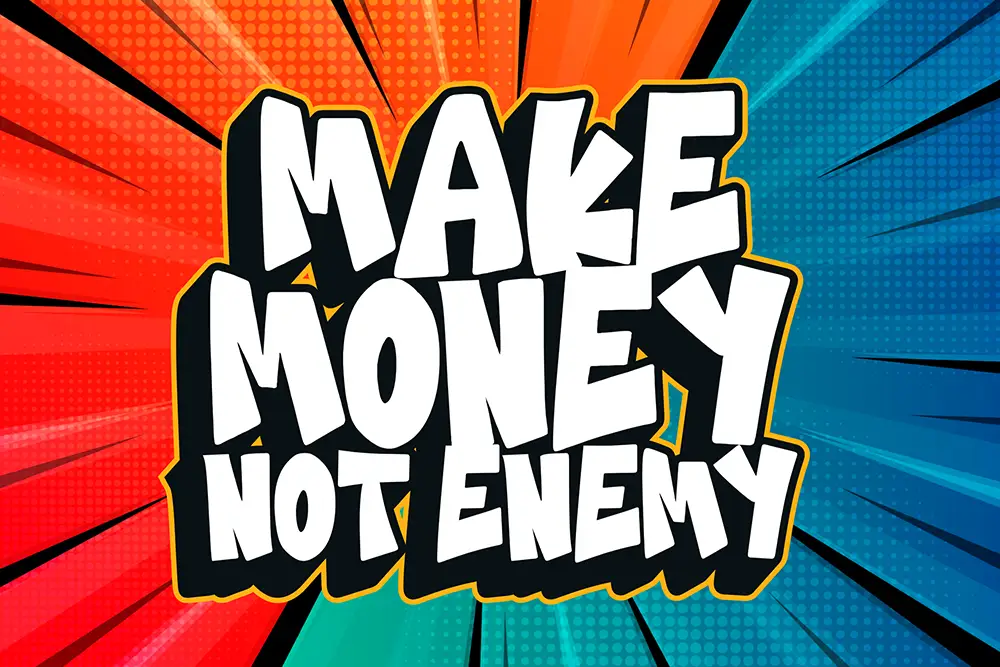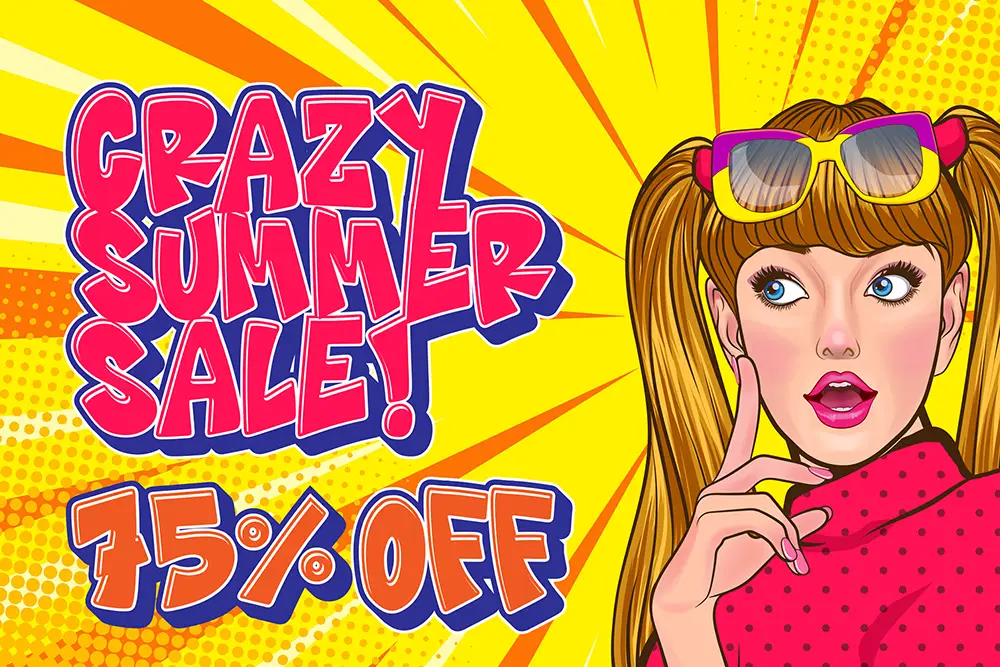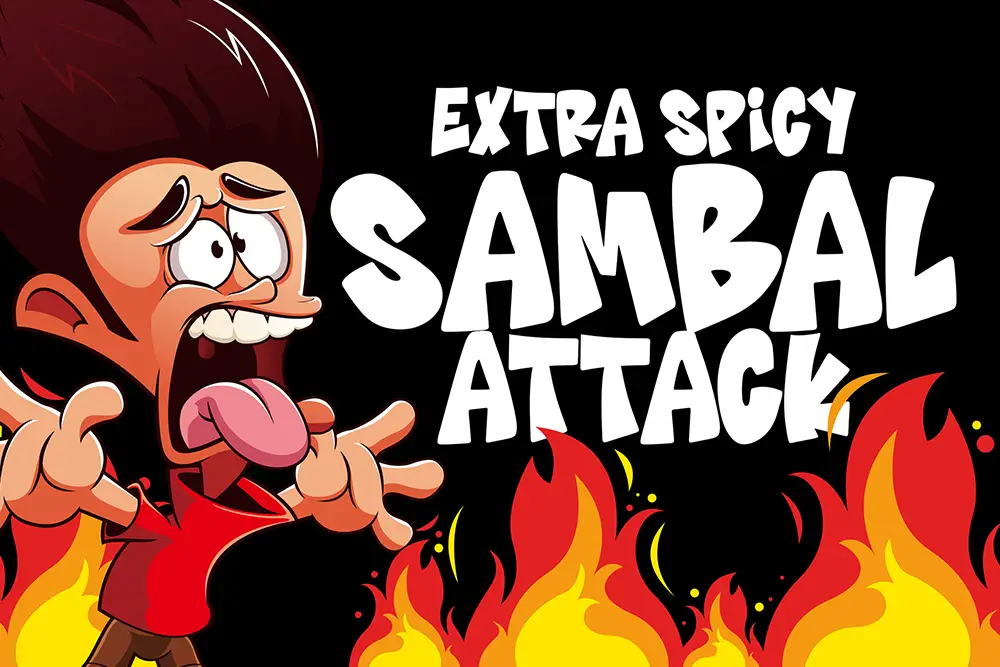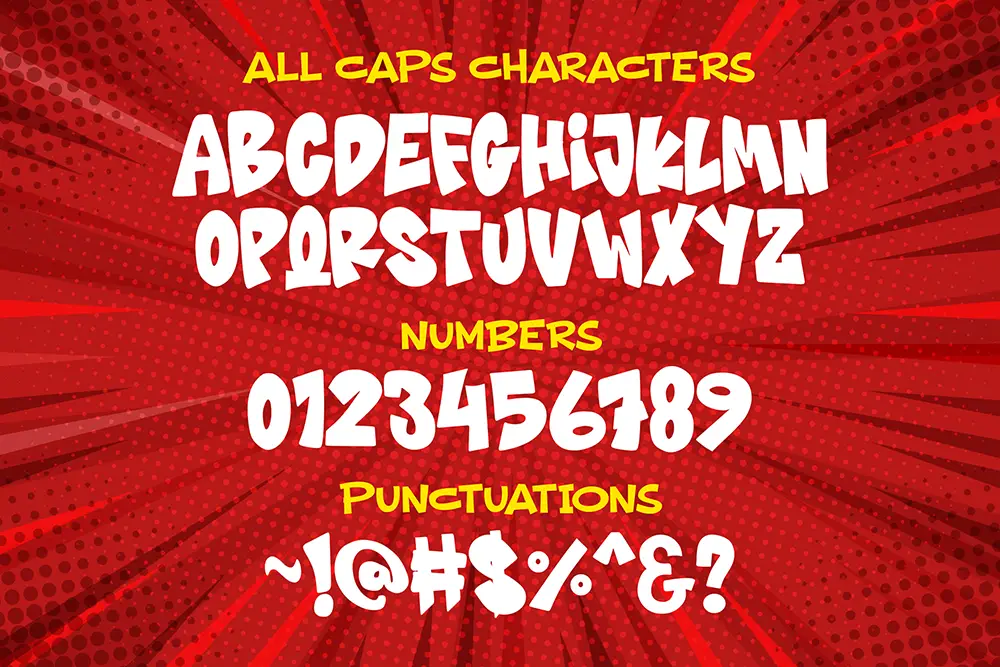
Comic Roasting – Comic Display Font for Playful Creative Design
Fonts bring life to visual communication, and nothing delivers fun energy like a comic display font. Comic Roasting – Comic Display Font is a bold, allcaps typeface created for playful, dynamic, and expressive design projects. With its quirky forms and unique curves, Comic Roasting instantly captures attention while adding humor and personality to your work.
This comic display font is perfect for posters, stickers, social media content, children’s branding, and logos that need a playful, approachable vibe. If your goal is to create designs that feel bold yet friendly, Comic Roasting is the ultimate choice.
Comic Display Font with Allcaps Energy
Comic Roasting isn’t just any font—it’s a carefully designed comic display font built entirely in allcaps. The uppercase style gives every word a bold presence, ensuring your message pops in posters, titles, and covers. With multilingual support, it’s not limited to one region or audience. This makes it a fantastic option for global projects that need to radiate fun and excitement.
From sticker packs to YouTube thumbnails, Comic Roasting brings expressive energy that feels hand-drawn yet polished.
Key Features of Comic Roasting – Comic Display Font
Designers choose fonts for both beauty and function. Here are the standout features of Comic Roasting – Comic Display Font:
• Allcaps Design: Built entirely in uppercase for strong, comic-inspired style
• Multilingual Support: Extended Latin coverage for international use
• Bold Playful Energy: Perfect for fun branding, children’s books, and posters
• Versatile Display Use: Works across digital, print, and packaging projects
Why Designers Love Comic Roasting
The secret to a great comic display font lies in balancing personality and readability. Comic Roasting does exactly that. Designers love it because it offers:
• Expressive Personality: Quirky shapes that add humor and warmth
• Bold Readability: Allcaps design that remains clear in large and small sizes
• Playful Aesthetic: Perfect for projects that need fun rather than formality
• Professional Quality: Designed with attention to detail for both print and web use
Comic Roasting for Posters and Stickers
Posters and stickers are all about bold, eye-catching visuals. With its comic-inspired allcaps style, Comic Roasting is an ideal comic display font for sticker packs, event posters, and playful advertising. It gives designs an approachable look while still maintaining strong impact.
Comic Roasting for Logos and Creative Branding
A logo doesn’t always have to be formal—sometimes it needs to feel fun, approachable, and lighthearted. That’s where Comic Roasting excels. This comic display font is perfect for kids’ products, playful startups, or social media-driven brands that want to appear friendly and relatable.
Comic Roasting in Digital Media
In today’s fast-paced digital world, a font that grabs attention is priceless. Comic Roasting works beautifully in YouTube thumbnails, social media graphics, meme culture, and animated content. Its allcaps structure ensures readability on every screen size, while its playful style connects emotionally with audiences.
This makes Comic Roasting more than just a comic display font—it’s a creative tool for storytelling in digital spaces.
• Best Uses: Posters, Stickers, Logos, Branding, Journals, Digital Media
Why Comic Roasting is a Must-Have Comic Display Font
Typography trends in 2025 are leaning toward fun, approachable, and humanistic styles. Comic Roasting captures this shift perfectly. With its allcaps style, multilingual support, and bold comic-inspired design, it’s a comic display font that belongs in every designer’s toolkit.
Whether you’re building branding for kids’ products, designing event posters, or creating digital stickers, Comic Roasting provides the spark of humor and energy that makes designs unforgettable.
Comic Roasting – Comic Display Font is more than a typeface. It’s a creative partner for projects that demand fun, energy, and bold communication. With its allcaps style, multilingual support, and professional formats, it’s ready for logos, posters, stickers, and global branding.